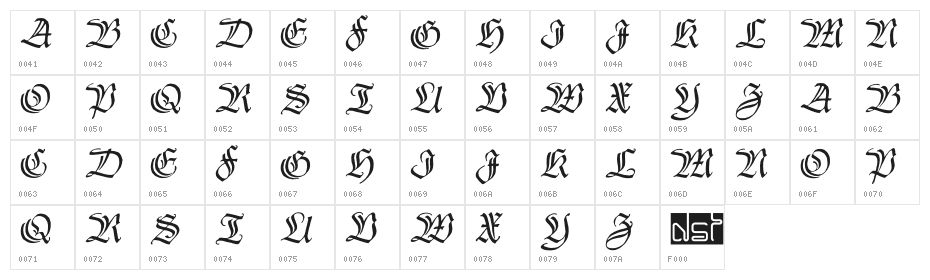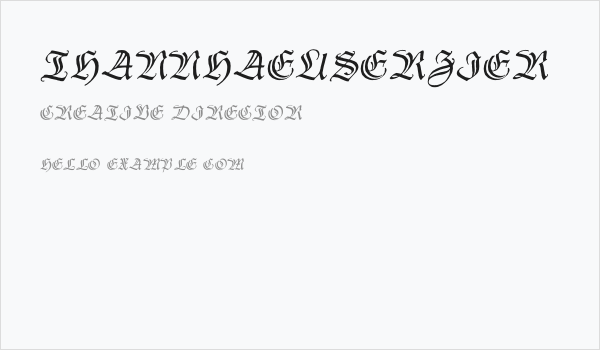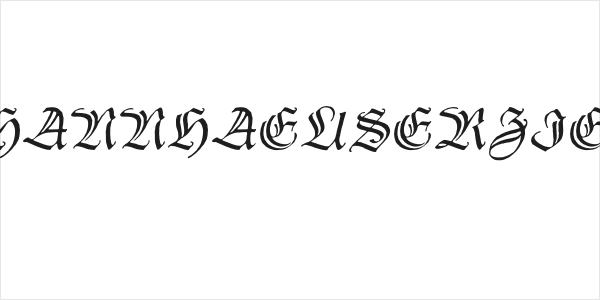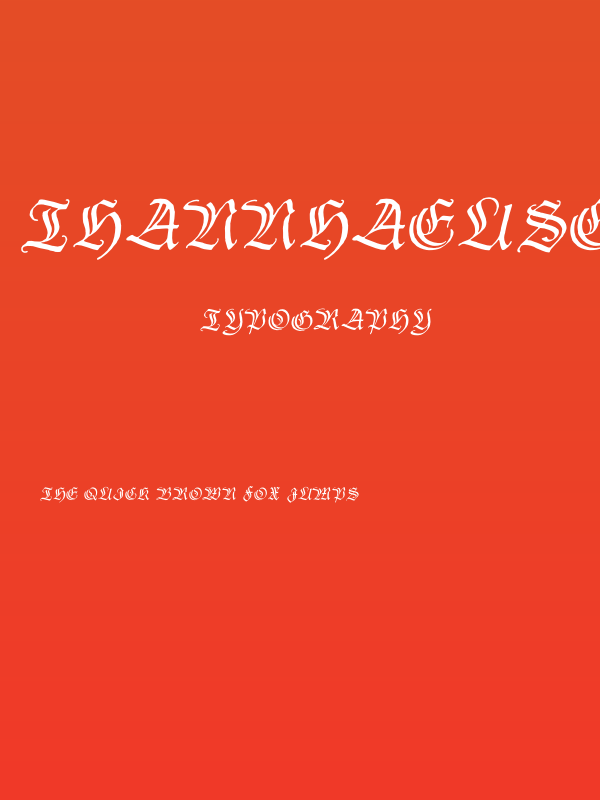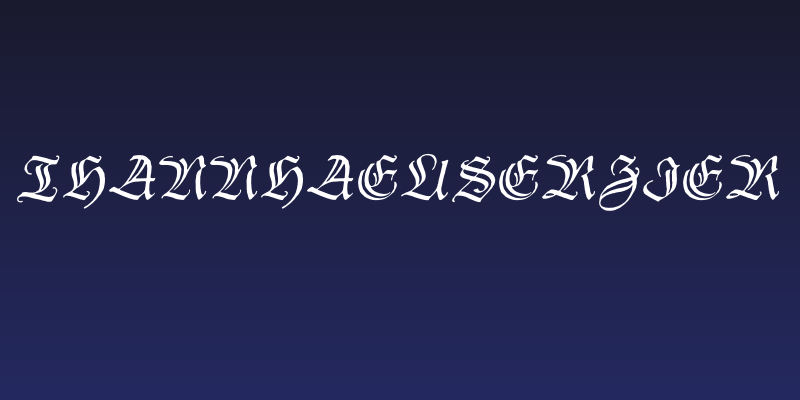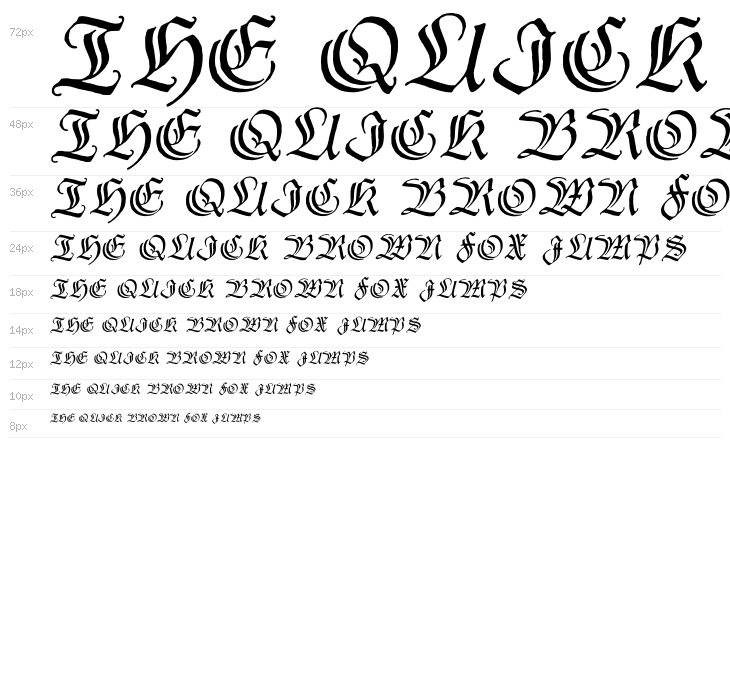
ThannhaeuserZier Font
ThannhaeuserZier Description
This font features an intricate and ornate design, reminiscent of traditional calligraphy with a modern twist. The characters are embellished with elaborate flourishes and sharp angles, giving it a distinct and sophisticated appearance. The uppercase letters are particularly striking, with bold strokes and decorative elements that enhance their visual impact. The lowercase letters maintain the same level of detail, ensuring consistency throughout the font. The numbers and special characters are equally well-crafted, making this font versatile for various applications. Its unique style is perfect for projects that require a touch of elegance and historical charm.
Overall StyleVintage
Use CaseLogos, Headlines, Decorative purposes
Proposed ProjectsIdeal for wedding invitations, historical documents, book covers, and branding that requires a classic and elegant touch.